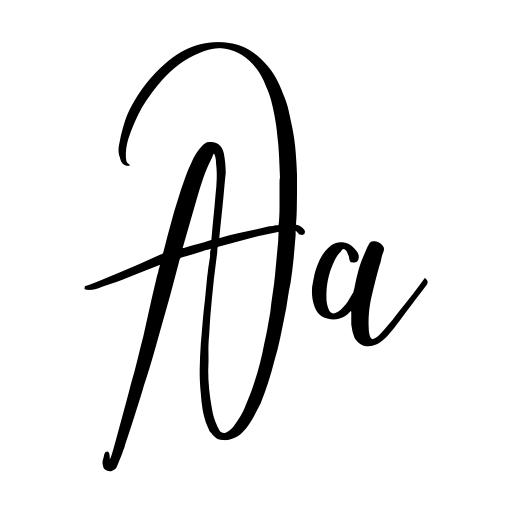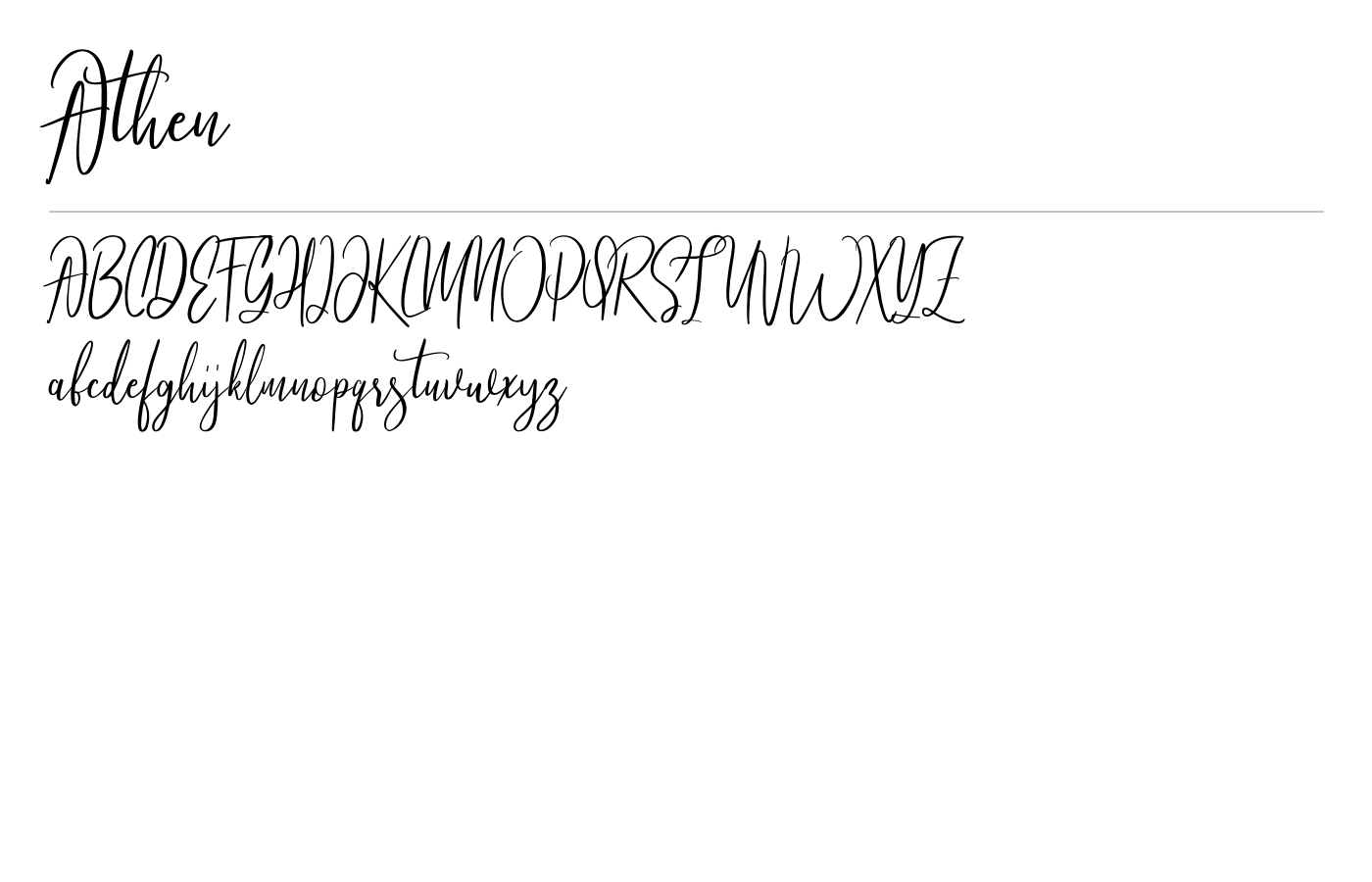
Athen Font is an elegant, handcrafted script font with a tall, narrow structure and graceful, flowing strokes. Its slender letterforms and smooth curves lend a sophisticated and artistic feel, making it perfect for stylish branding, invitations, and feminine design projects. The font’s delicate yet readable style works well for headlines, logos, and decorative text where a touch of elegance and uniqueness is desired.
Athen Font
About Athen Font